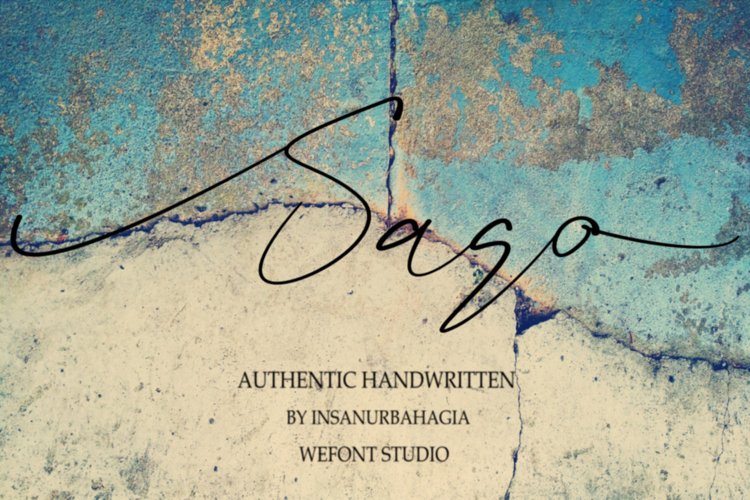
Sago is a simple and beautiful handwriting. Natural writing from an amazing art. This font can also be called a signature.
This fonts contains several ligatures and alternates. This font is PUA encoded which means you can access all of the glyphs and swashes with ease! It features a varying baseline, smooth lines, gorgeous glyphs and stunning alternates.